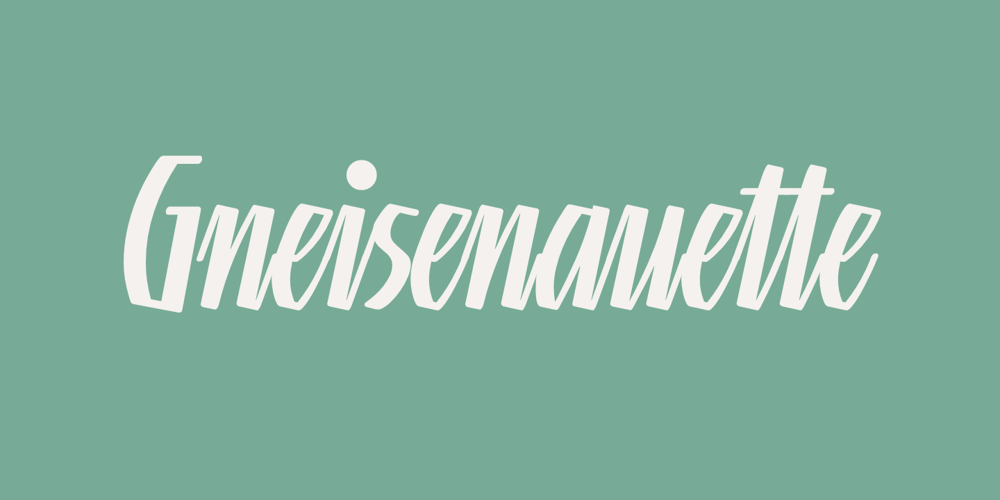
Linotype Gneisenauette Font Family was designed by Gustavs Andrejs Grinbergs and published by Linotype. Linotype Gneisenauette contains 8 styles and family package options. Linotype Gneisenauette is part of the Take Type Library, selected from the contestants of Linotype’s International Digital Type Design Contests of 1994 and 1997. The handwriting font was designed by Latvian artist Gustavs A. Grinbergs and is available in eight weights. Linotype Gneisenauette is a dynamic font which also reflects a bit of the optimistic spirit of the 1950s. The font is best used for headlines or middle length texts with a point size 12 or larger.